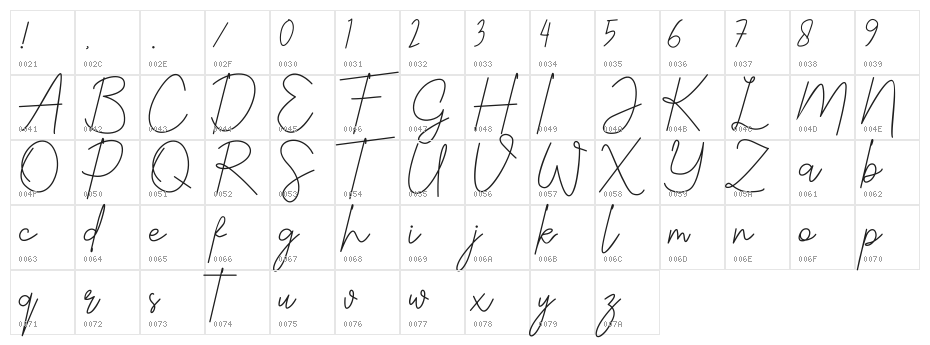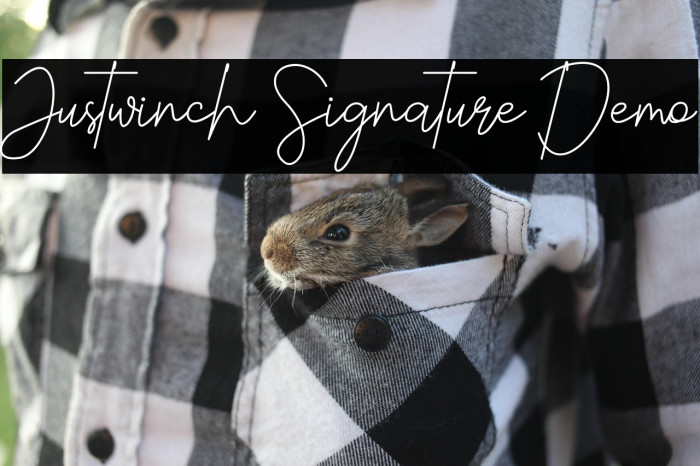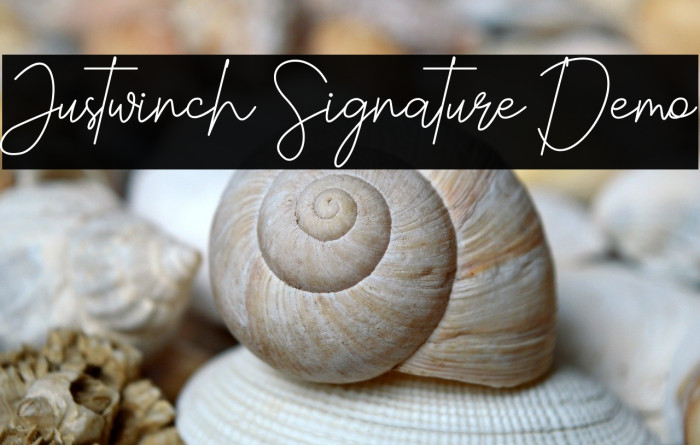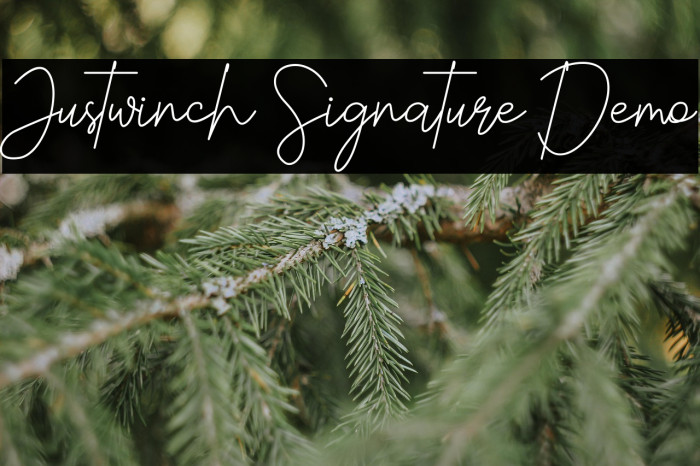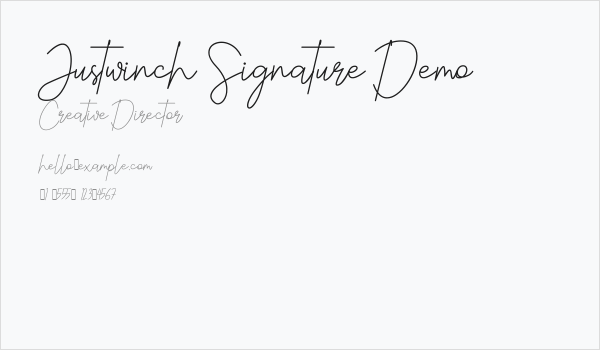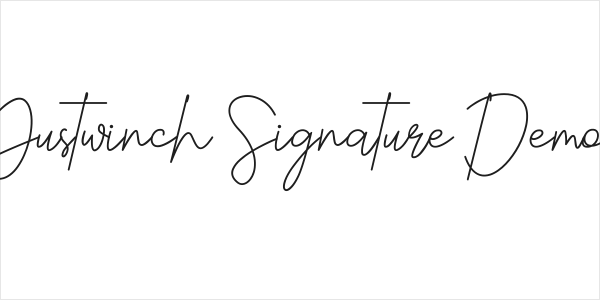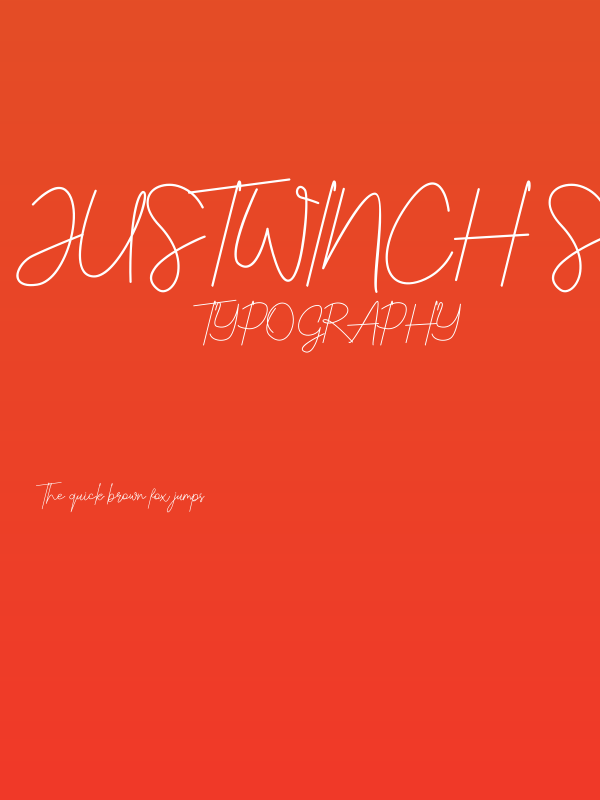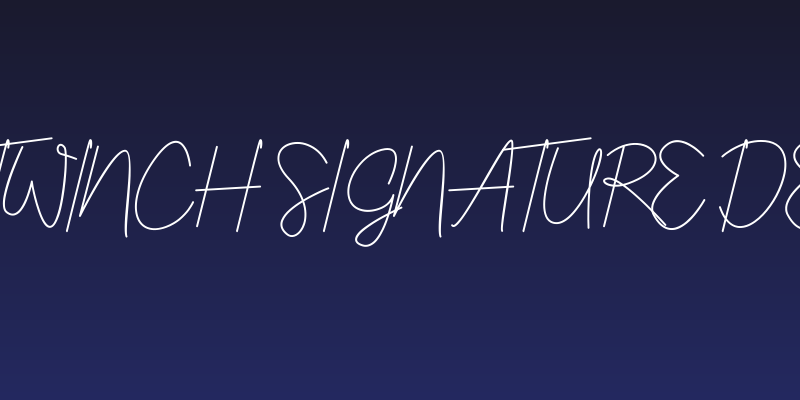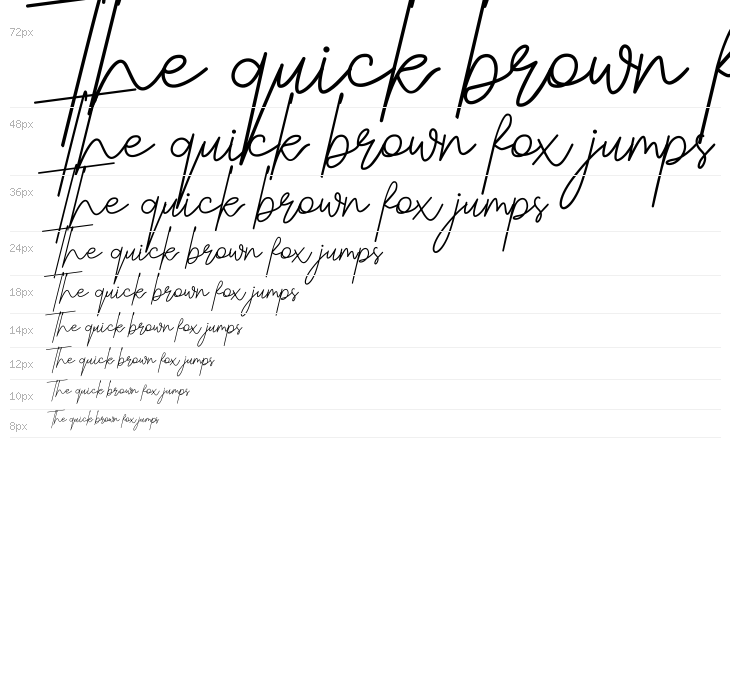
Justwinch Signature Demo Font
Justwinch Signature Demo Description
This font exudes a casual elegance with its flowing, handwritten style. The characters are connected with smooth, continuous strokes, giving it a signature-like appearance. The uppercase letters maintain a consistent height, while the lowercase letters vary slightly, adding to the organic feel. The numbers and special characters are crafted with the same fluidity, ensuring a cohesive look across all elements. The overall design is both modern and timeless, making it versatile for various applications.